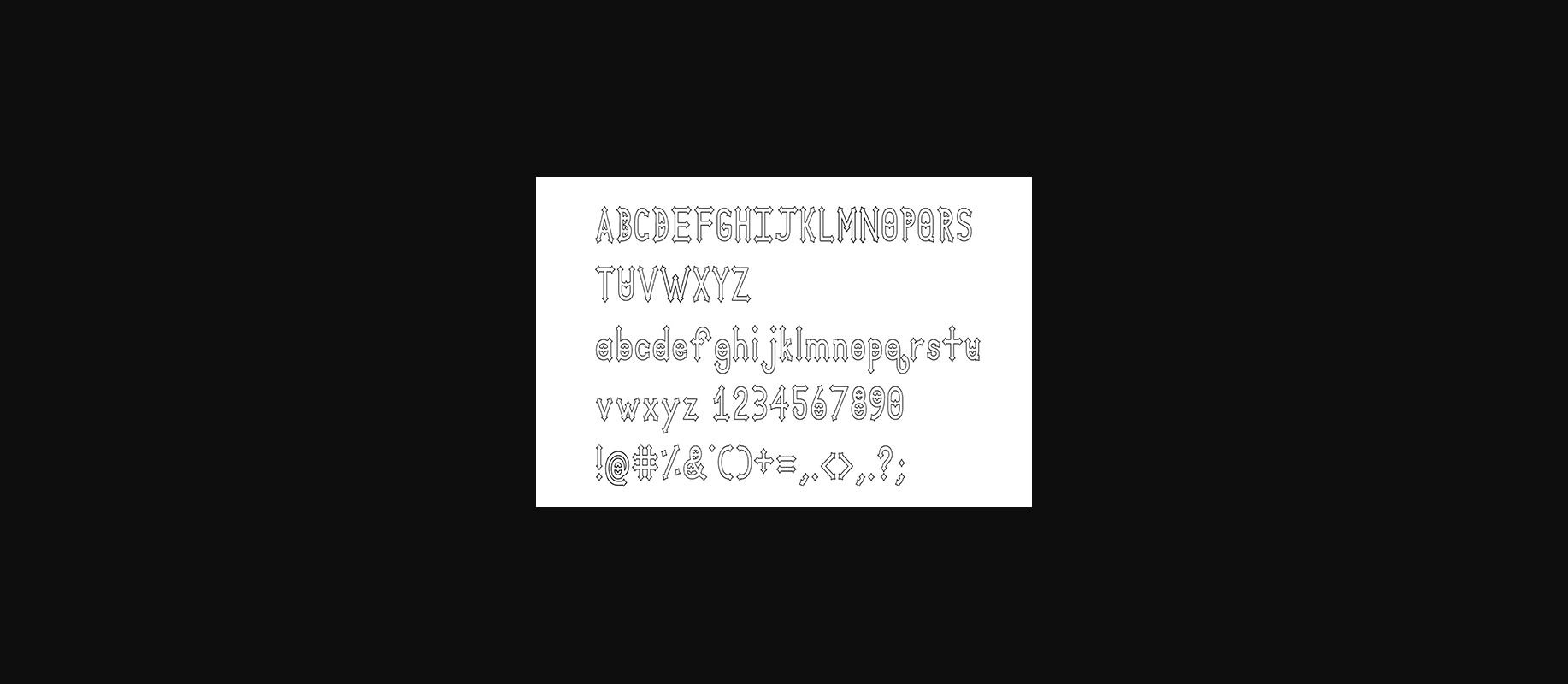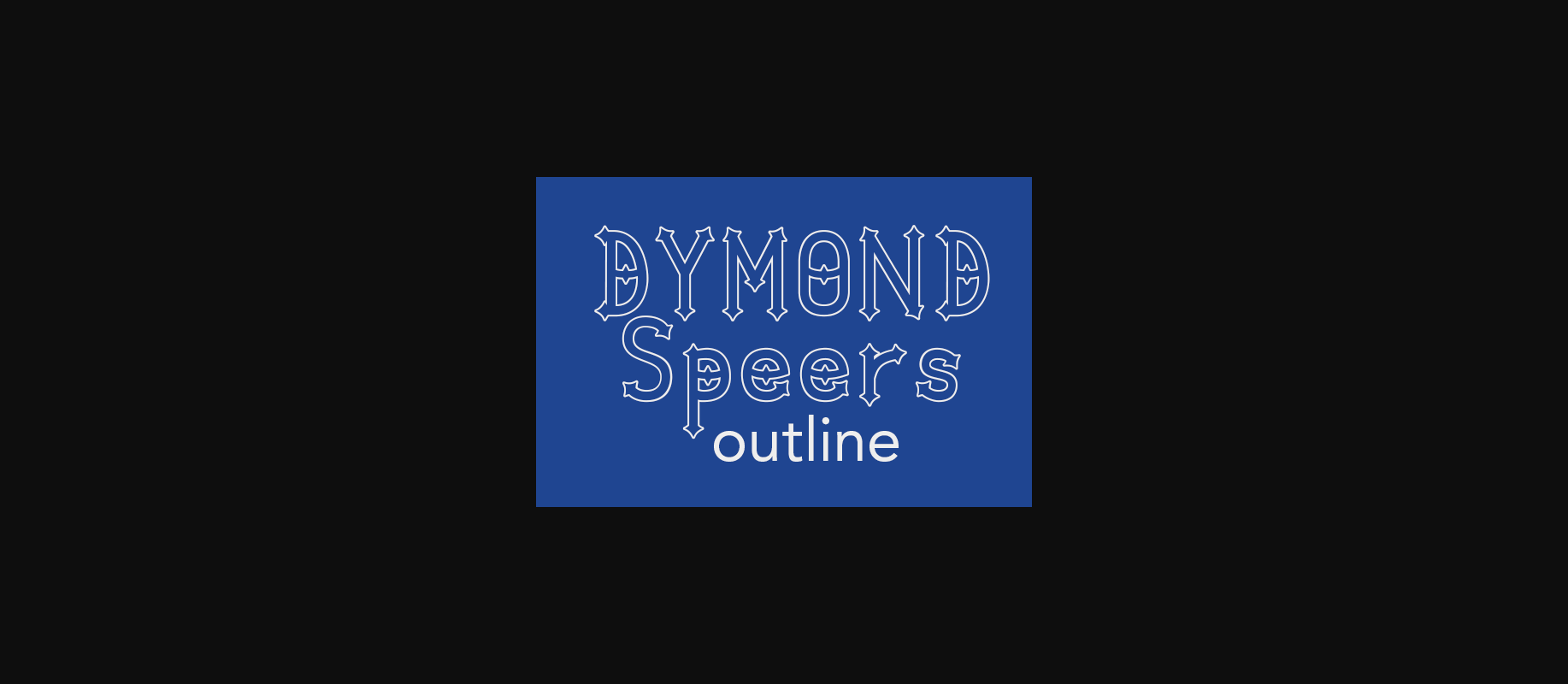
Dymond Speers Outline Font
About Dymond Speers Outline Font
This is the “Ghost” version of the Dymond Speers “Solid” version. Use to give a decorative touch to your designs.